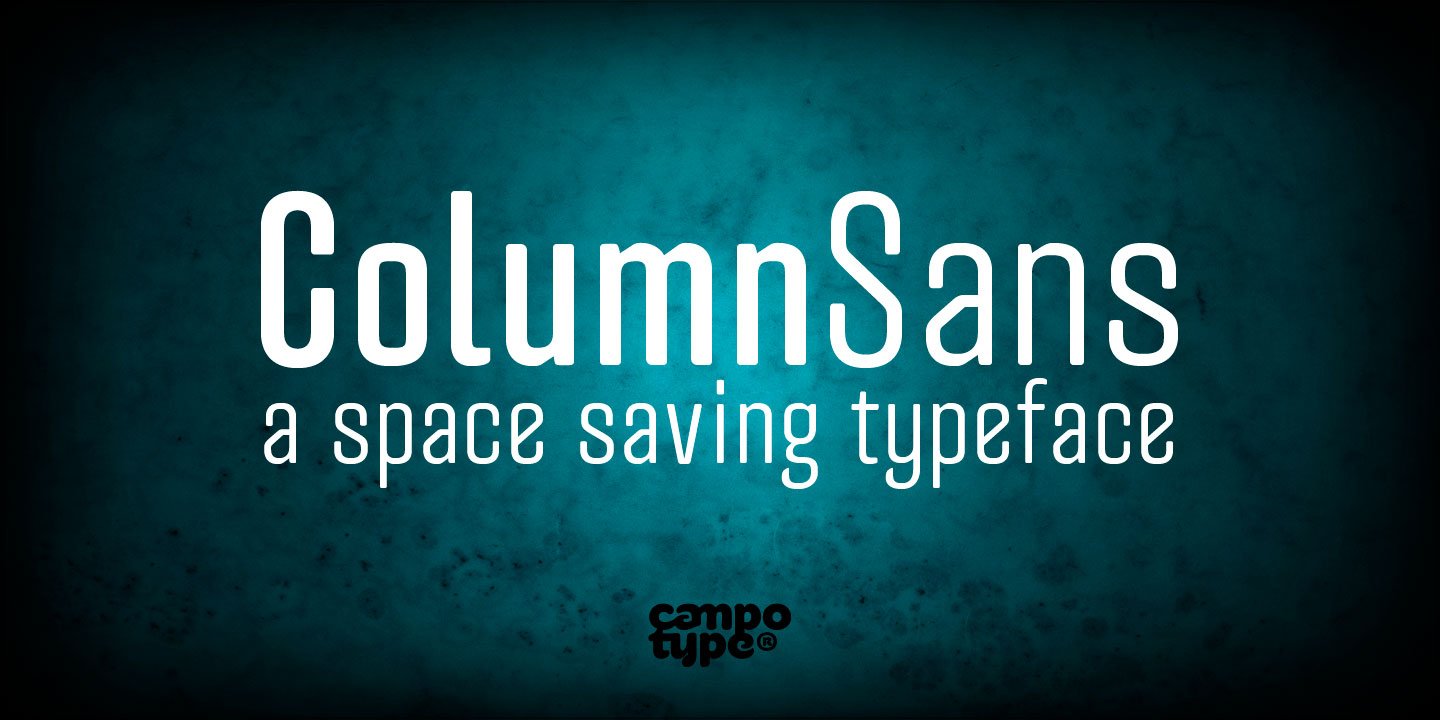
Column Sans Font is perfect for architectural firms, newspaper publications, government institutions, classical museums, structural engineering companies, professional journalism platforms, and prestigious academic institutions. This authoritative typeface embodies architectural strength and editorial clarity, bringing structural stability and professional journalism excellence to any design project celebrating institutional authority and information organization.
What makes Column Sans Font exciting is its powerful combination of architectural stability and editorial precision that perfectly captures the essence of structural integrity and professional journalism. The font features strong letterforms with column-inspired proportions and clean geometric structure that evoke both classical architectural columns and modern newspaper layouts. Its reliable character inspires confidence while maintaining exceptional readability for both architectural documentation and editorial publishing applications.
The Column Sans Font family includes comprehensive weight variations from light to bold, complete with condensed styles and institutional ornamental elements. The character set features structural ligatures, architectural symbols, editorial alternates, and professional decorative accents that enhance the font's authoritative appeal. Advanced OpenType features provide precise typography for international institutions and multilingual publishing applications.
Whether you're designing architectural brand identities, creating editorial publication materials, or developing institutional content, Column Sans Font Free Download provides exceptional authority and versatility. This reliable typeface transforms ordinary text into trustworthy institutional experiences that communicate structural integrity while establishing respected brand recognition in competitive architecture, journalism, and institutional marketplaces.